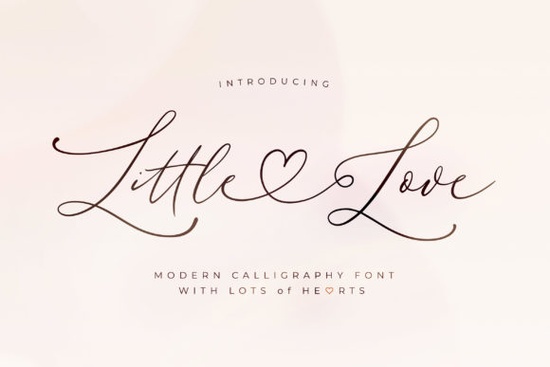
If you work on wedding invitations, handmade packaging, or printable wall art, finding a script typeface that balances elegance with readability can be frustrating. Little Love Font solves that by offering a refined, graceful hand-lettered style that stays legible even at smaller sizes. The clean lines and thin strokes give it a smooth, modern feel without looking overly ornate. Whether you are a graphic designer building brand identities, a crafter cutting vinyl for home decor, or a print-on-demand seller creating t-shirt mockups, this typeface gives you a reliable foundation for your next creative project.
Why is the PUA encoding useful for everyday design work?
One of the first things to notice is how this script handles extra characters. It is fully PUA encoded, which means you can type standard letters and immediately access alternate glyphs, swashes, and ligatures using the Character Map in your design software. You do not need to remember complex keyboard shortcuts or install extra utility programs. For beginners who work in Canva, Photoshop, or Cricut Design Space, this saves hours of trial and error. You simply pick the exact flourish you want and keep your layout moving.
Which projects benefit most from this thin, smooth style?
The clean, minimal approach makes it highly adaptable across multiple creative fields. Here are a few places it tends to perform best:
- Wedding and event stationery – The delicate strokes pair well with textured paper and soft watercolor backgrounds.
- Apparel and tote designs – Thin scripts sit nicely on fabric prints, especially when layered over simple geometric shapes or line art.
- Product labels and packaging – It adds a boutique feel to skincare jars, candle tins, or coffee bags without overwhelming the main text.
- Digital planners and printable templates – The smooth curves stay crisp on screens, making it ideal for shop headers and social media banners.
How do you keep the layout balanced when pairing scripts?
Script typefaces work best when they are given room to breathe. Since this font has a light, airy weight, it pairs naturally with clean sans serif or structured slab serif faces. If your project feels too crowded, try removing decorative borders or dropping the background contrast so the letters stand out clearly. You can also mix it with other hand-lettered styles to see how different vibes change your composition. For example, pairing it with Stay Wonderful can add a slightly more rounded contrast, while Biscuit brings a warmer, retro texture to the same layout. Experimenting with spacing before finalizing your design helps avoid cramped compositions.
What should beginners check before downloading and using it?
How can you make the most of this typeface in your daily workflow?
Consistency matters more than perfection when building a visual brand. Stick to a two-typeface rule for client projects to maintain a cohesive look. Use tracking adjustments sparingly; scripts lose their natural flow when letters are pushed too close or too far apart. Keep a reference folder of successful layouts so you can quickly replicate what worked when a new deadline arrives. If you need more options for seasonal campaigns or niche markets, browsing through Cherry alongside this download gives you a broader library without overcomplicating your design system. You can find the official files and updates directly by searching for Little Love Font on the marketplace.
Quick checklist for getting started
- Verify your design software supports OpenType and Unicode features before installing.
- Test alternate swashes in the Character Panel to match your project tone.
- Set up a simple grid or guide layout to keep letter spacing consistent across pages.
- Print a physical test copy or export a high-resolution mockup to check line weight on your target material.
- Replace a headline in an older layout with this script, adjust the tracking until it aligns with your brand spacing, and compare the before and after results.